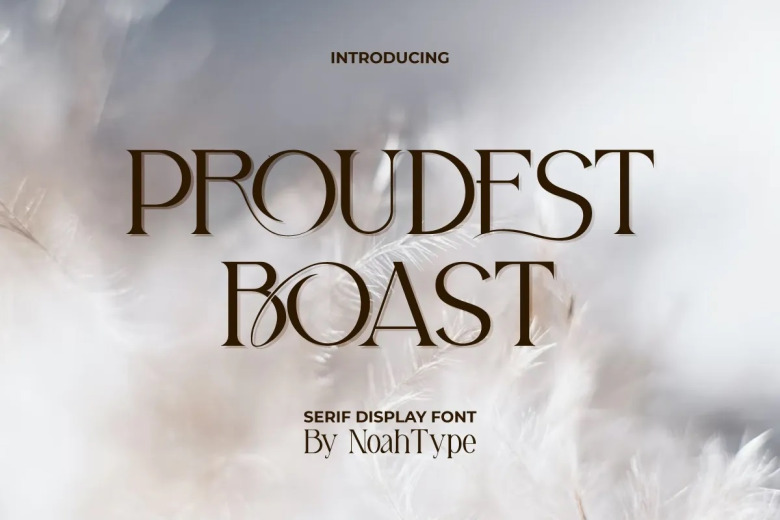
Proudest Boast Font
Proudest Boast is an elegant serif display font! It is useful that this font has a hard thin edge- it does not distract from the overall look of this typeface. You can easily pair this font with other fonts, and Funcy Font would be perfect for any industries that need a beauty taste. Such as boutique, cosmetic, fashion, florist, homeware, jewelry publishing wedding or even planner etc.
Proudest Boast Display Font